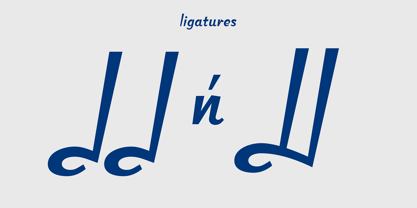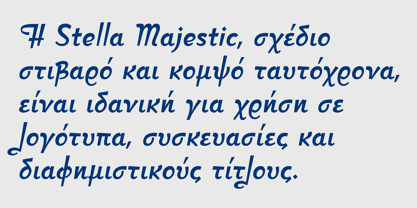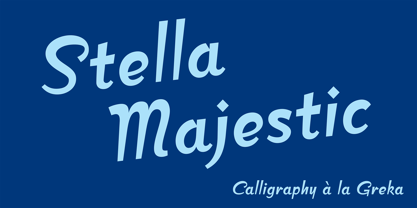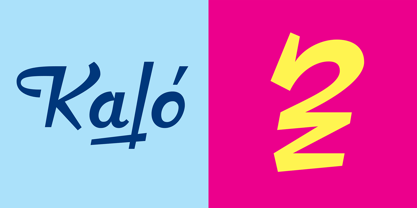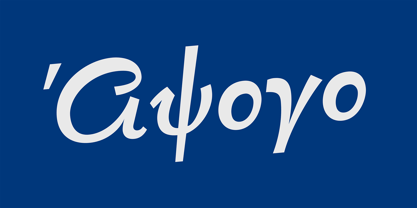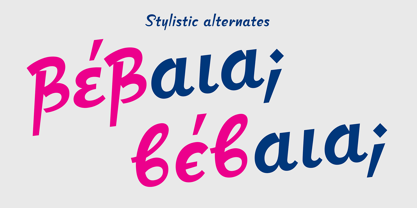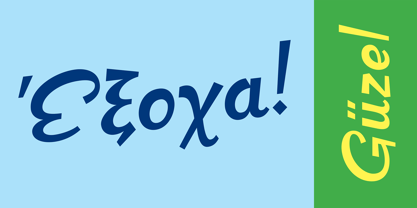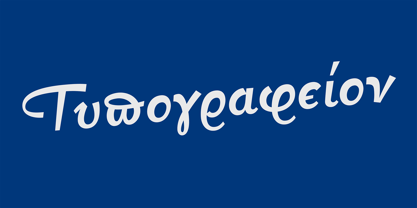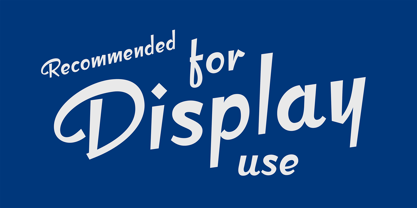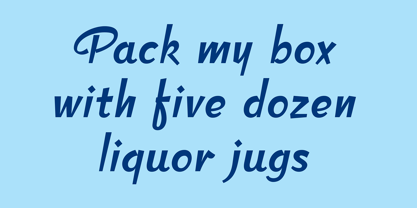
Stella Majestic
The Stella Majestic Font Family was designed by Panos Haratzopoulos, Yannis Karlopoulos and published by Fonts.GR. Stella Majestic contains 1 styles. More about this family
Stella Majestic is a typeface inspired by the art of greek calligraphy. It is the first design of the Stella Project, an attempt to study this forgotten heritage and adjust it’s unique style for the modern media and communication tools. Stella Majestic, a bold yet elegant design, is ideal for use in logotypes, packaging and advertising texts. The font contains swash capitals, alternate characters, ligatures and non lining figures.